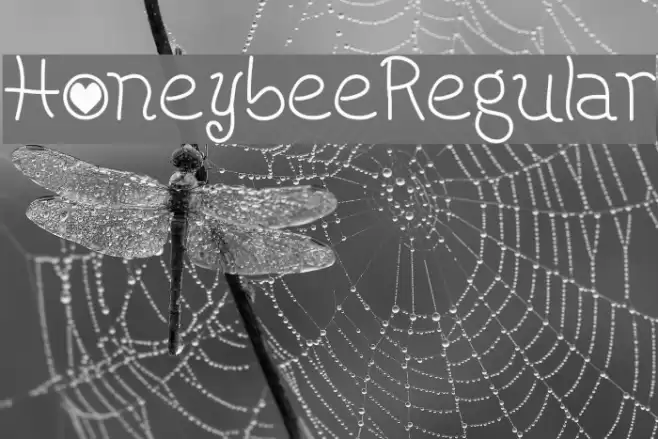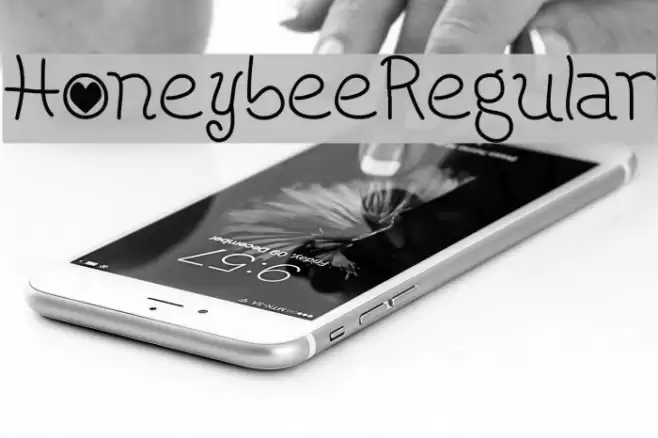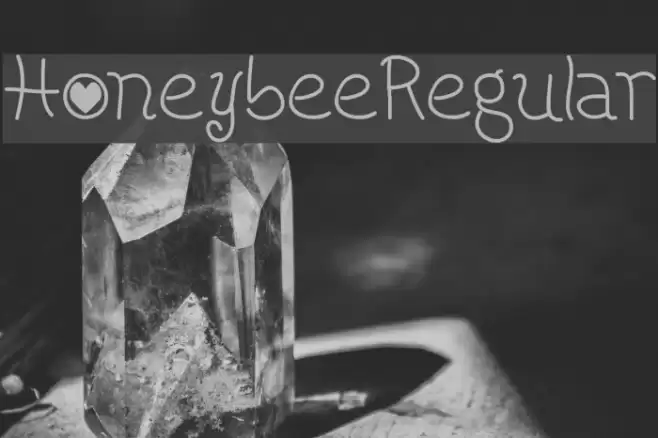
HoneybeeRegular Font
HoneybeeRegular Description
This font features a playful and whimsical style with a handwritten appearance. The characters are rounded and smooth, with a consistent stroke width that gives it a friendly and approachable feel. Unique elements include heart shapes incorporated into certain letters, adding a touch of charm and personality. The numerals and special characters maintain the same playful aesthetic, making it suitable for creative and informal designs. The overall look is cohesive and visually appealing, perfect for projects that require a fun and lighthearted touch.
A playful, handwritten font with heart-shaped accents and a whimsical style from Uncategorized fonts.
- Proposed Projects: Ideal for greeting cards, children's books, playful branding, and social media graphics.
- Use Case: Logos, Headlines, Invitations